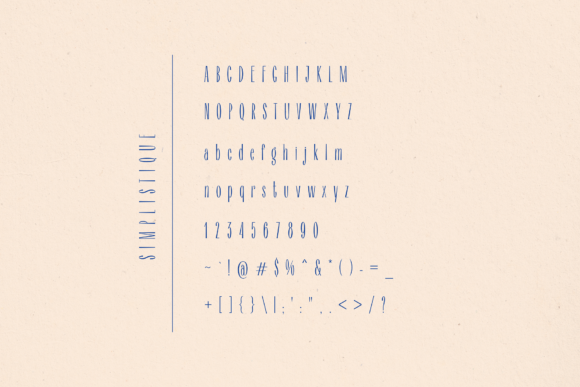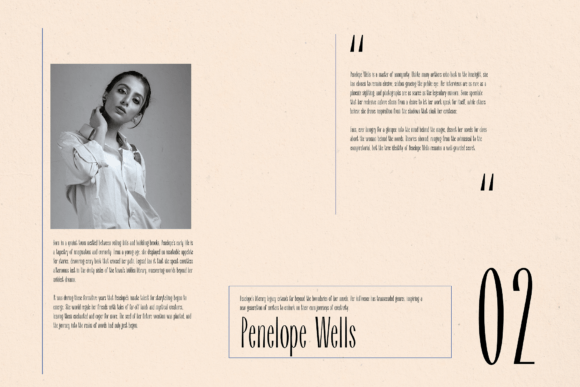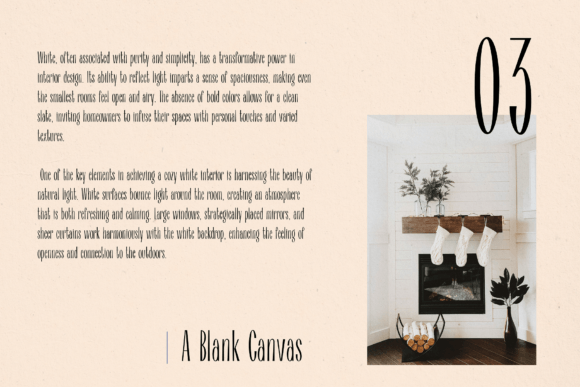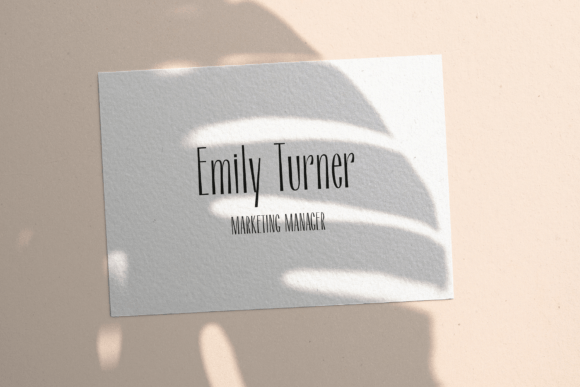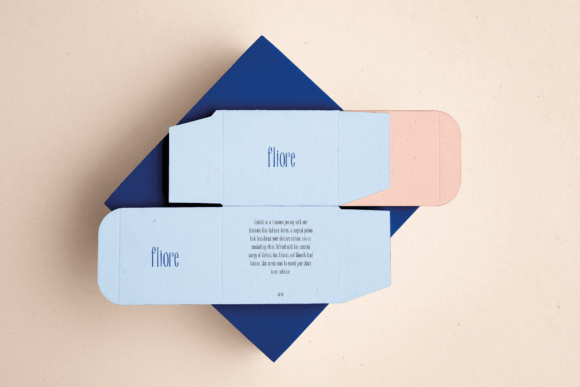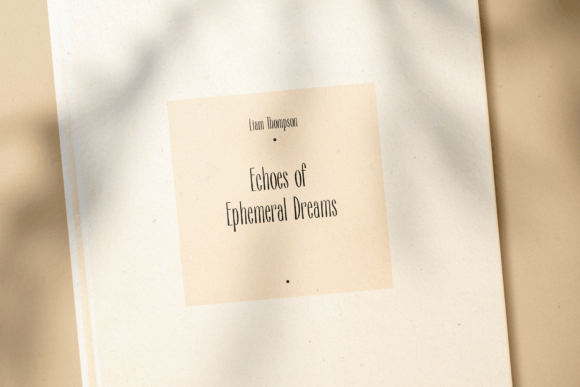
Introduction to Simplistique Font
Have you ever been working on a creative project, pouring your heart and soul into every detail, only to realize that the perfect font is missing? For designers, this is a frustrating yet familiar experience. But what if I told you there’s a solution that will change the way you approach typography forever? Meet Simplistique Font, the game-changing typeface that’s redefining elegance with its minimalist charm.
Crafted with meticulous attention to detail, Simplistique Font boasts clean lines, balanced proportions, and a transparent background that makes it perfect for any design resource. Its high-quality design ensures that it remains legible and impactful even in the most constrained spaces, making it an invaluable asset for designers working on a wide range of creative projects. And the best part? It’s available for free download, making it an accessible design resource for anyone looking to elevate their design game.
Key Features of Simplistique Font
- High-quality design for a wide range of creative projects, from graphics to digital media.
- Transparent background, allowing for seamless integration with various design elements.
- Designed with a clean and modern aesthetic, making it an excellent design resource for contemporary projects.
- Unique characteristics, such as rounded edges and subtle texture, add a touch of sophistication to any creative project.
Honest Review: Simplistique Font
As a designer, I’m always on the lookout for high-quality design resources to elevate my creative projects. Recently, I came across the Simplistique Font, and I’m excited to share my honest review.
- ✨ Unique and modern design aesthetic that adds a touch of sophistication to any project
- ✨ High-quality typography that is crisp and clear, making it perfect for both digital and print projects
However, I do have a few concerns:
- ⚠️ Limited character set, which may not be suitable for extensive text-based projects
- ⚠️ May not be as versatile as other fonts, which could limit its use in certain design scenarios
Overall, I’m impressed with the Simplistique Font. While it may have some limitations, its unique design and high-quality typography make it an excellent addition to any designer’s toolkit. With a little creativity, it can be used to create stunning designs that elevate any creative project.
To get the most out of the Simplistique Font, try pairing it with a transparent background to create a clean and modern look. You can also experiment with different font sizes and colors to add visual interest to your design.
The Simplistique Font is ideal for:
- Marketing materials, such as brochures and flyers
- Website design and development